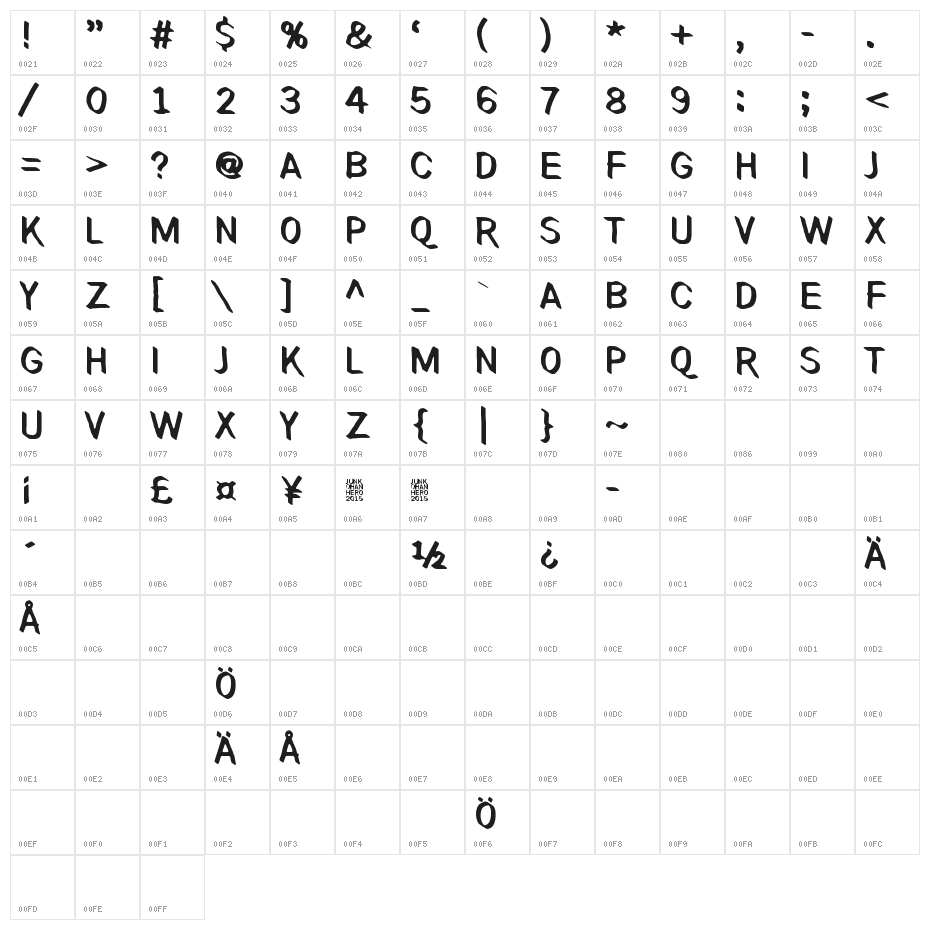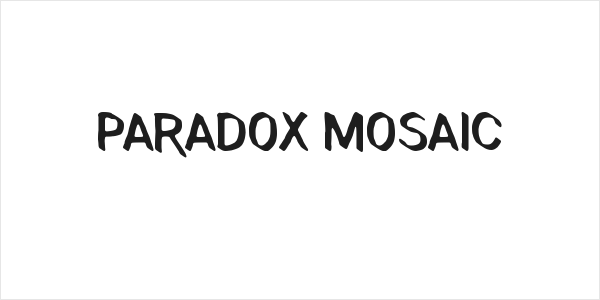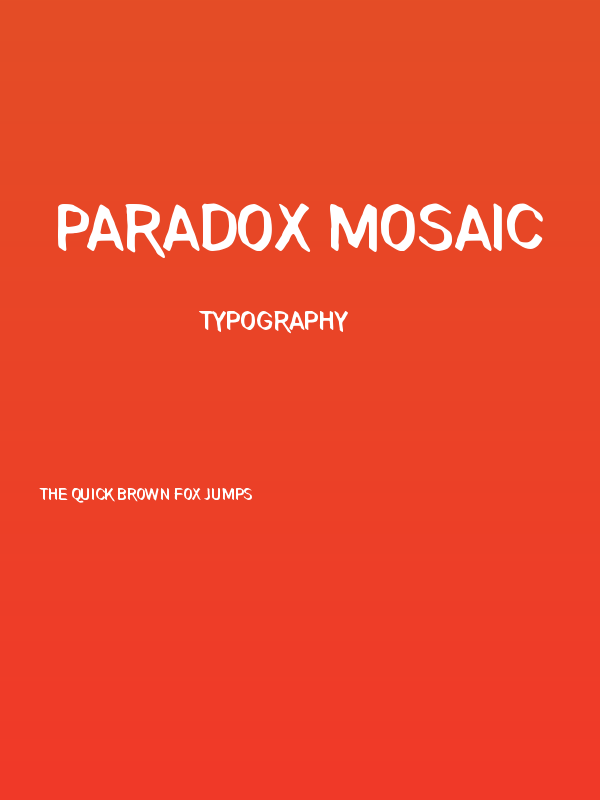
Paradox Mosaic Font
Paradox Mosaic Description
This font features a bold and dynamic style with a hand-drawn appearance, characterized by uneven strokes and a playful, artistic flair. The letters have a slightly irregular shape, giving them a unique and creative look. The uppercase and lowercase letters maintain a consistent style, with rounded edges and varying stroke thicknesses that add to the font's charm. The numbers and special characters are equally expressive, maintaining the overall aesthetic. This font is ideal for projects that require a touch of creativity and individuality, making it perfect for artistic endeavors.
| Use Case | Headlines, Logos, Artistic projects |
| Proposed Projects | Ideal for creative projects such as posters, art pieces, children's books, and branding that requires a unique and artistic touch. |